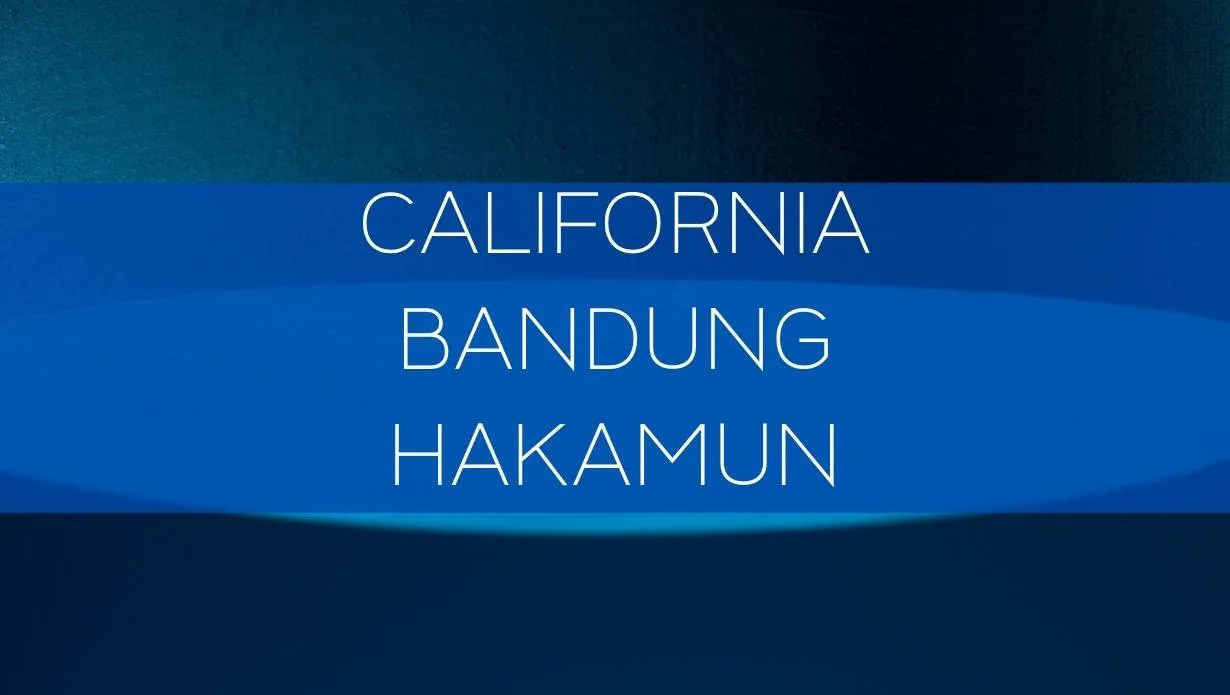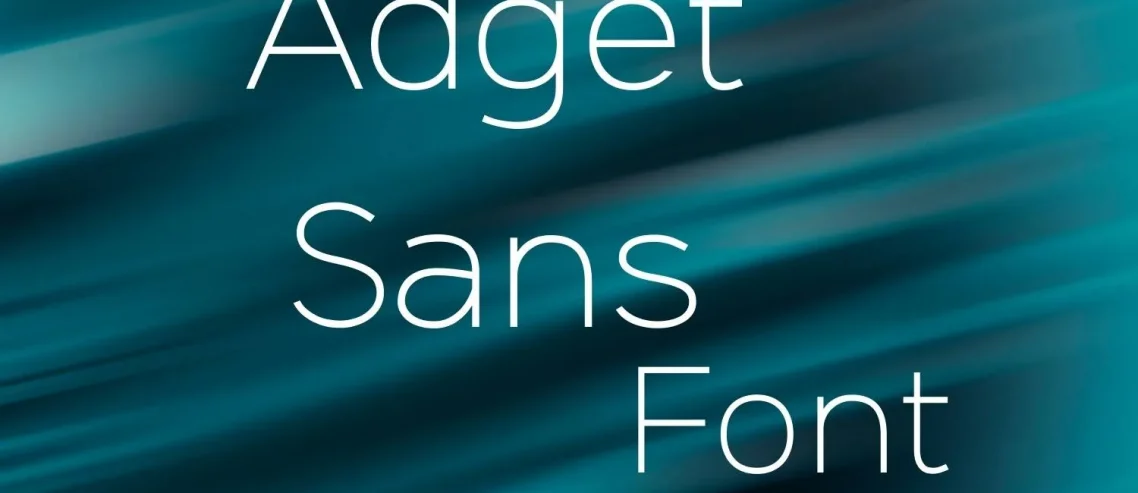
Adget sans font is a sans-serif font designed by Adrien Gardère. It is a display typeface with a very “clean” look, suitable for headlines and other large text sizes. The font includes standard and extended Latin characters, as well as Cyrillic support.
The font has a very “clean” look, with tight letterforms and little or no ornamentation. This font style is also very good for both pairing and copy-paste functions and you can also easily combine this font with Hobo Font
- Adget Sans Regular
- Adget Sans ExtraLight
- Adget Sans Light
- Adget Sans Book
View of Adget sans Font